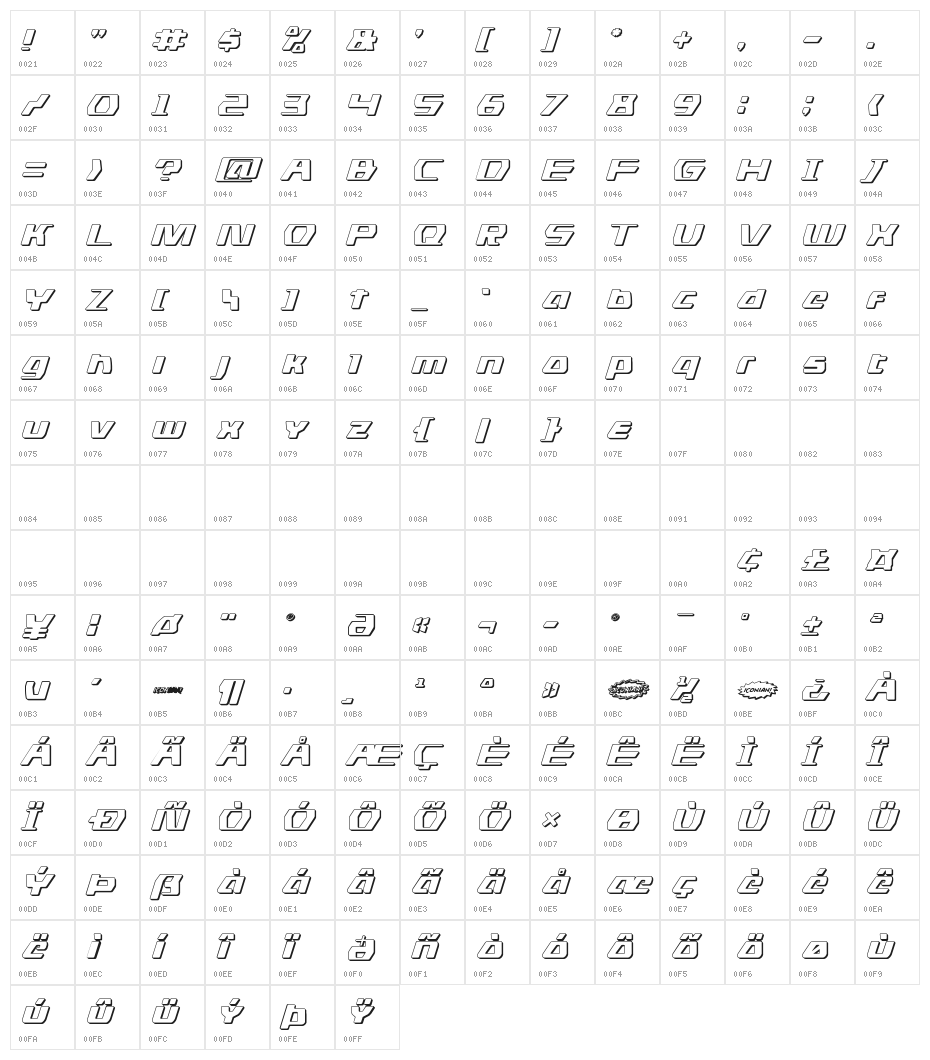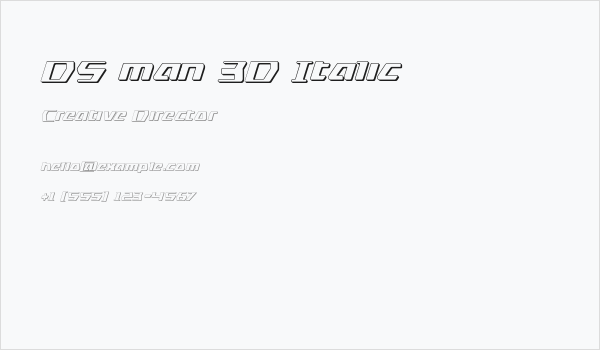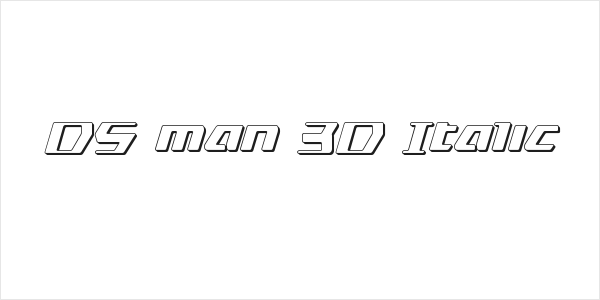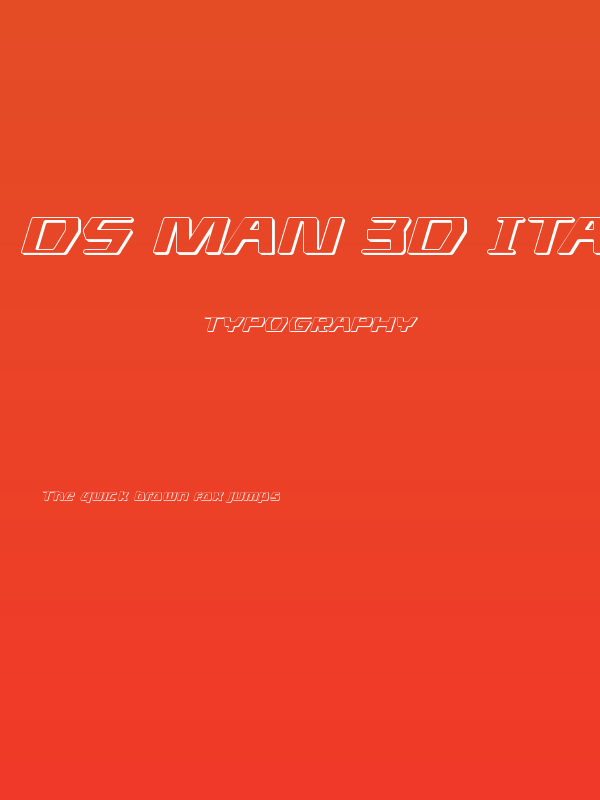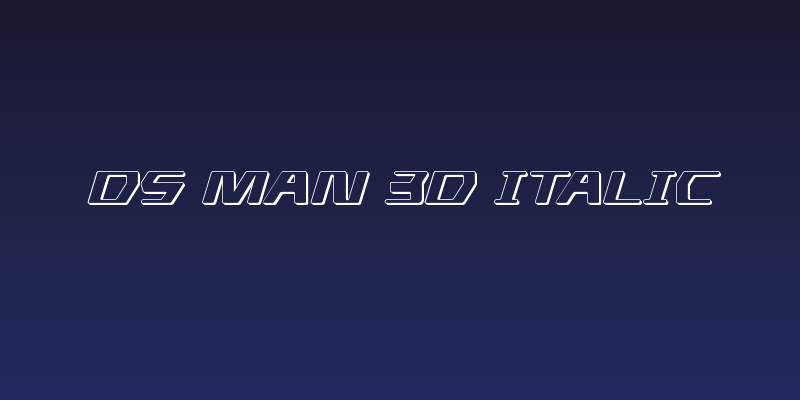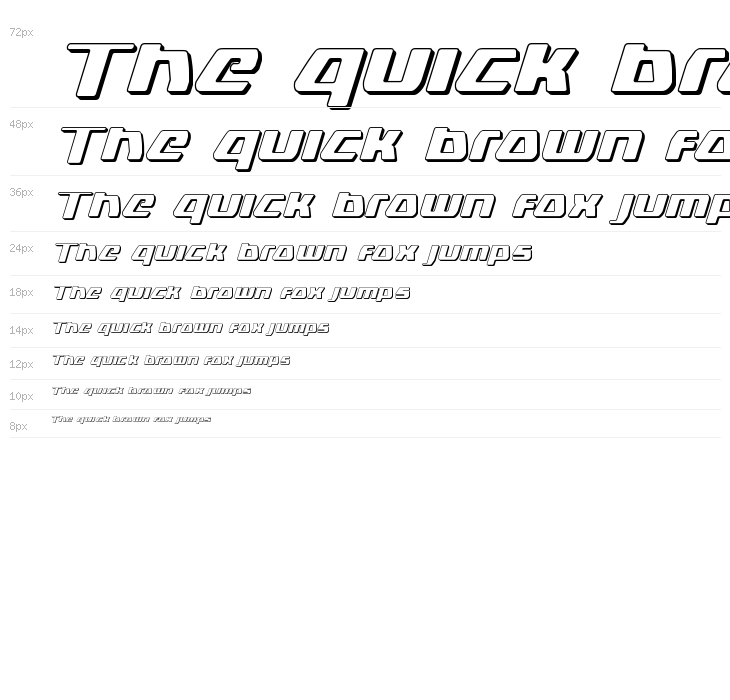
DS man 3D Italic Font
DS man 3D Italic Description
This font features a bold, three-dimensional appearance with a distinct italic slant, giving it a dynamic and futuristic feel. The characters are outlined, creating a hollow effect that enhances its 3D look. The uppercase and lowercase letters maintain a consistent style, with sharp angles and geometric shapes. Numbers and special characters follow the same design principles, ensuring uniformity across all glyphs. The font's unique style makes it stand out, suitable for projects that require a modern and eye-catching typeface.
| Proposed Projects | Ideal for video game titles, tech branding, futuristic posters, and digital art projects. |